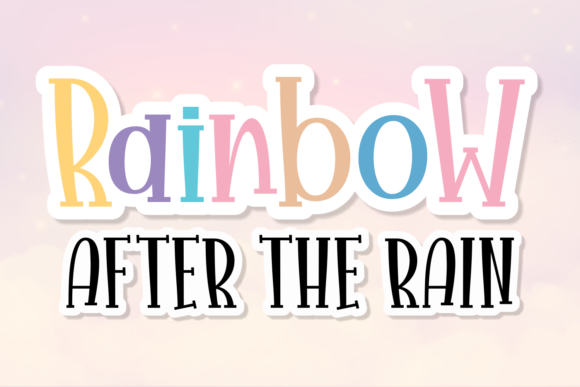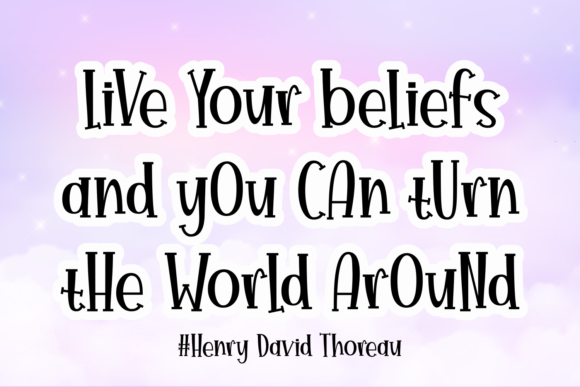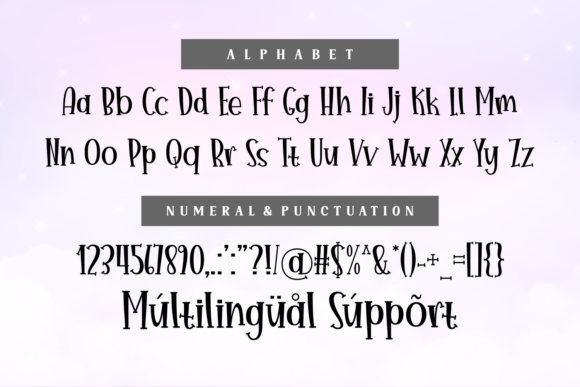
We’ve all been there – staring at a blank canvas, trying to spark some creativity, and suddenly, a burst of imagination hits. The blank space transforms into a world of endless possibilities, and the ideas start flowing. For many designers, it’s moments like these that remind us why we love our craft.
One tool that can bring a bit of magic to your designs is the Beloved Stories Font. This quirky display font is designed to add a touch of fun and personality to any project, whether you’re crafting a birthday card, designing a party invitation, or creating a custom sign for your home. The Beloved Stories Font is compatible with popular cutting machines like Cricut and Silhouette, making it a valuable asset for designers who want to take their projects to the next level.
Beloved Stories Font Key Features
- Font Family: Beloved Stories is a unique, hand-drawn font designed to evoke a sense of nostalgia and storytelling.
- Character Set: The font includes a wide range of characters, including uppercase and lowercase letters, numbers, punctuation, and special characters.
- Unique Characteristics: Features a distinctive, hand-drawn style with varying line widths and subtle imperfections, giving it a personal and emotive feel.
Designer Review: Beloved Stories Font
As a designer, I was excited to dive into the world of Beloved Stories Font. Here’s my honest review:
- ✨ Elegant, whimsical feel that’s perfect for children’s books and fantasy stories.
- ✨ Beautiful, flowing letterforms that make it easy to read and create visually appealing layouts.
- ✨ A wide range of language support, including Latin, Cyrillic, and Greek scripts.
- ⚠️ Limited font weights and styles, which might make it less versatile for complex designs.
- ⚠️ Some characters may not render correctly in certain fonts or environments, which could lead to inconsistencies.
Overall, I think Beloved Stories Font is a lovely addition to any designer’s toolkit. While it may have some limitations, its unique charm and readability make it a great choice for the right projects. If you’re looking for a font that’s perfect for storytelling and fantasy themes, I’d definitely recommend giving it a try.
The “Beloved Stories Font” is ideal for creating a vintage or nostalgic feel in your designs. Use it for:
- Book covers and book titles
- Vintage-inspired advertisements and marketing materials
Alternatives to Beloved Stories Font
Great Vibes is a modern, elegant script font that is perfect for creating a romantic and whimsical atmosphere. It is ideal for wedding invitations, love letters, and other personal messages. Compared to Beloved Stories Font, Great Vibes has a more flowing and organic feel, making it suitable for a wide range of creative projects.
Carolyna Pro is a beautiful, handwritten font that is great for adding a touch of sophistication and elegance to your designs. It is perfect for branding, packaging, and other commercial projects. Compared to Beloved Stories Font, Carolyna Pro has a more refined and polished look, making it suitable for high-end projects.
Lexend Deca Font
Lexend Deca is a modern, sans-serif font that is designed for readability and versatility. It is perfect for body text, headings, and other large-scale projects. Compared to Beloved Stories Font, Lexend Deca has a more straightforward and functional design, making it suitable for a wide range of applications.